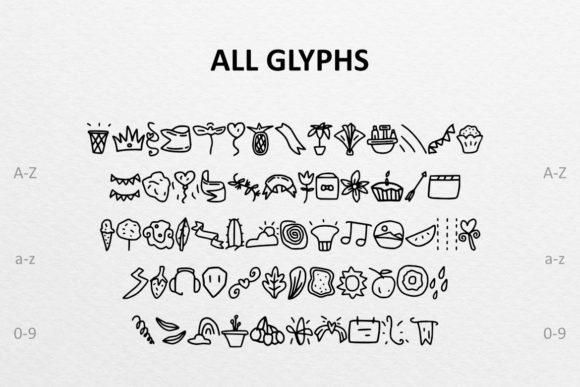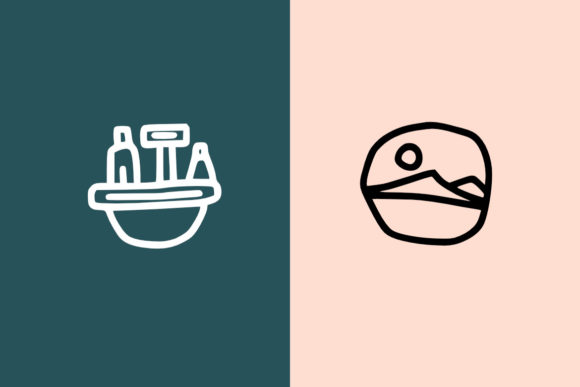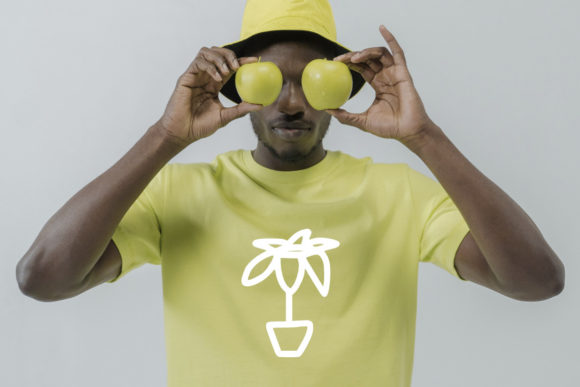
The Doodle Font: A Creative Game-Changer for Designers and Crafters
Ah, the elusive perfect font. You know, that one design element that can make or break a project. I recall working on a whimsical logo design for a local bakery, searching for a font that could convey playfulness and friendliness. That’s when I stumbled upon the Doodle font – a cool and useful dingbats font that has since become a staple in my design toolkit.
What is the Doodle Font?
The Doodle font is a versatile dingbats font consisting of 62 symbols, perfect for a wide range of creative projects, logos, ornaments, and more. Its eclectic mix of shapes, icons, and doodles can add a touch of personality to any design.
- ✨ Unique and quirky design that adds a touch of whimsy to any project
- ✅ Extensive character set with 62 symbols to choose from
- 🌈 Highly versatile and suitable for various design applications, from logos to social media graphics
While the Doodle font is an excellent addition to any design toolkit, there are a few minor limitations to consider:
- 🤔 Limited language support, as it’s primarily designed for use with dingbats and symbols
- ⚠️ Some characters may require manual adjustment for optimal spacing and alignment
Legend has it that the Doodle font was created by a freelance designer who loved doodling in her notebooks during meetings. She began to experiment with her doodles, digitizing them into a font that could be used by others. The result was the Doodle font – a quirky, versatile, and highly usable font that’s perfect for creative projects.
| Font Name | Doodle Font |
| Author | CrafterFonts |
| What type of projects is the Doodle font best suited for? | The Doodle font is versatile and can be used for a wide range of projects, including logos, social media graphics, illustrations, and more. |
| Is the Doodle font available in different styles or variations? | The Doodle font comes with 62 symbols, but you may be able to find variations or similar fonts that offer additional styles. |